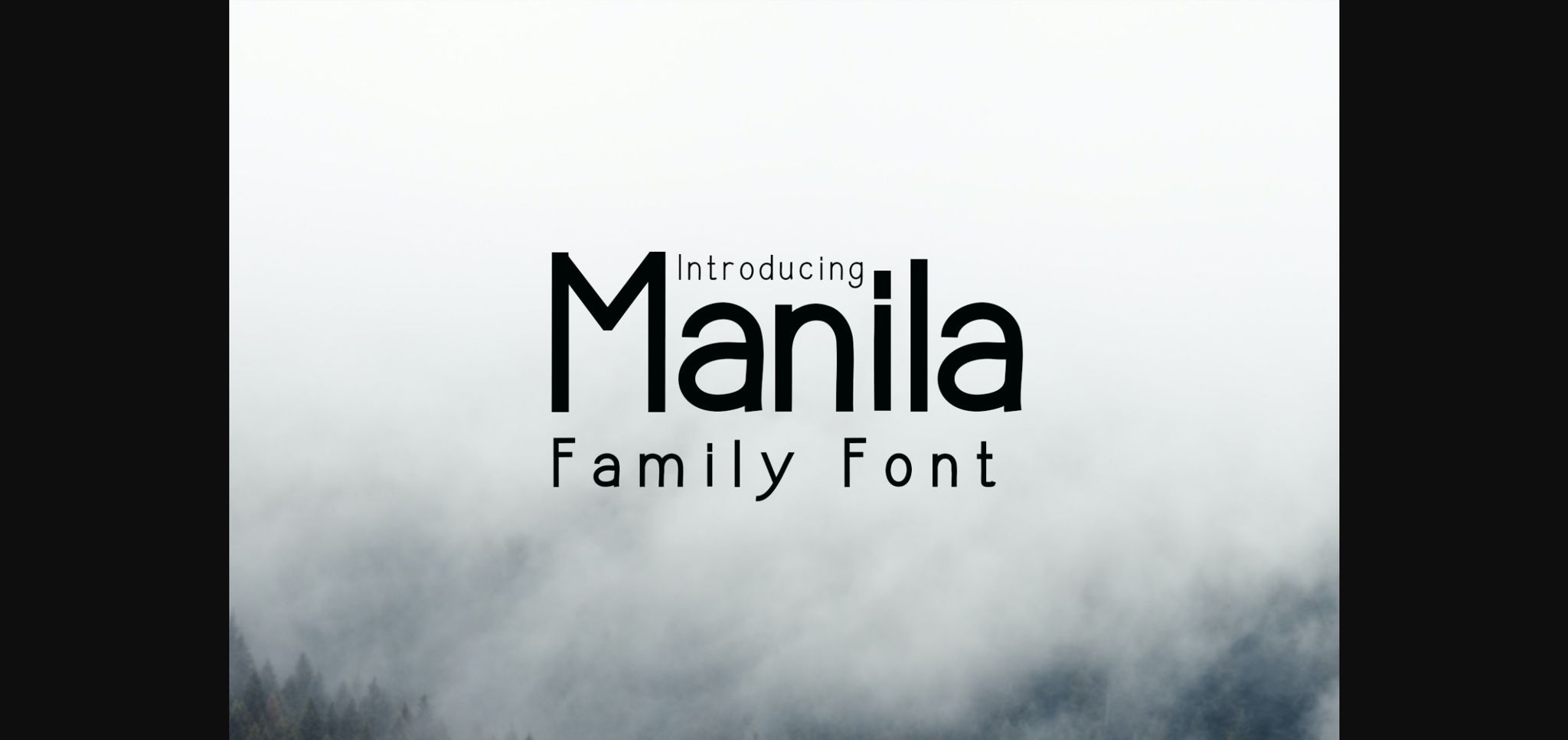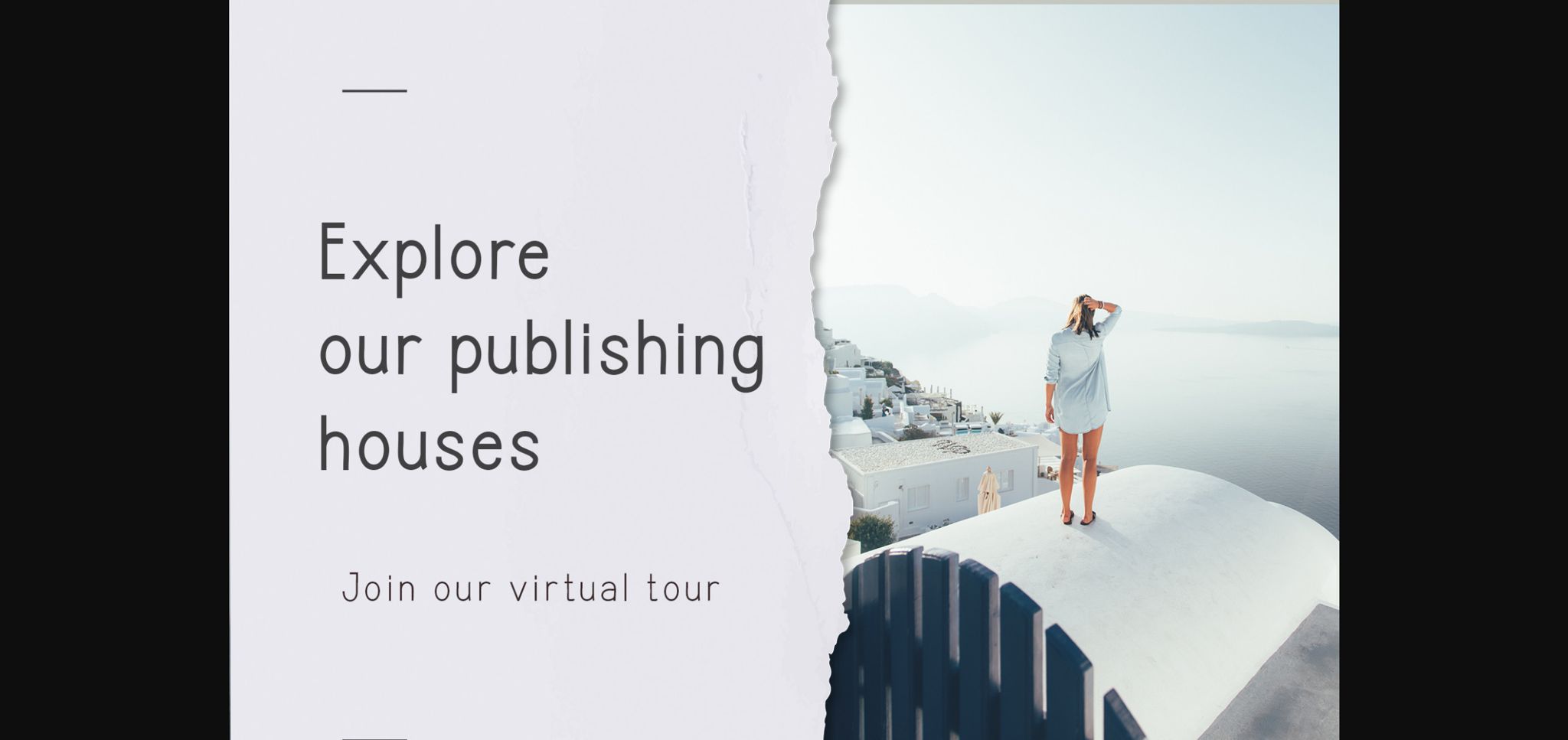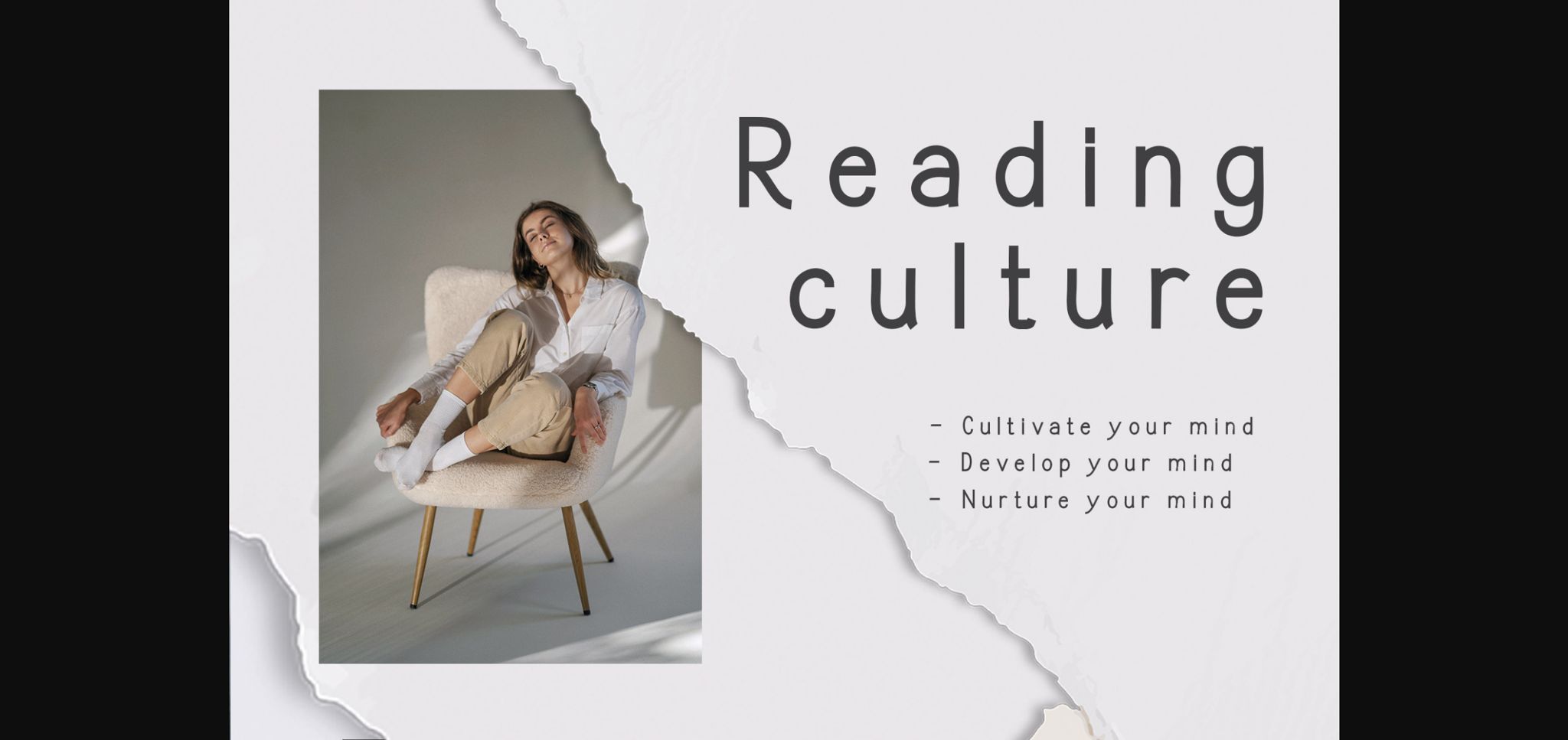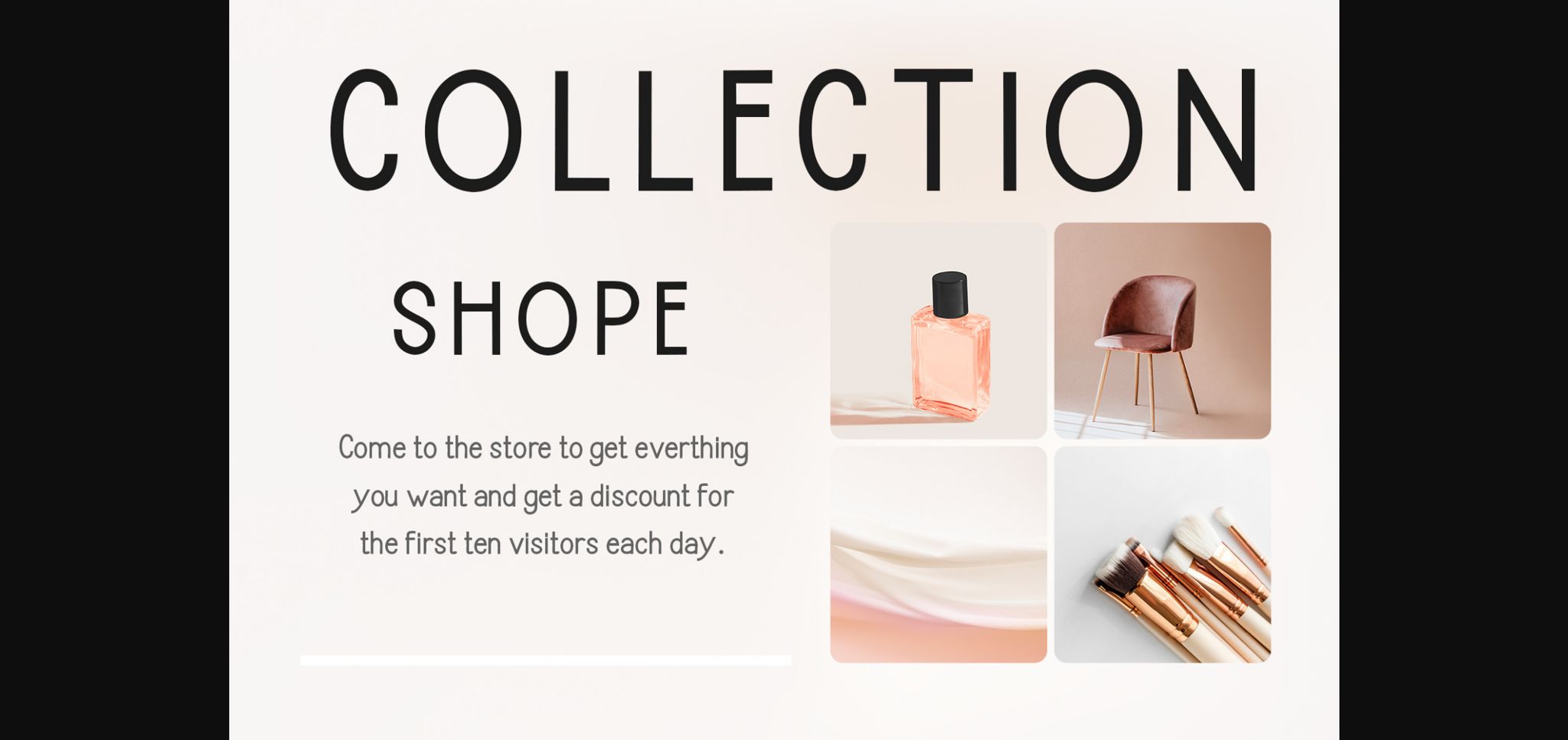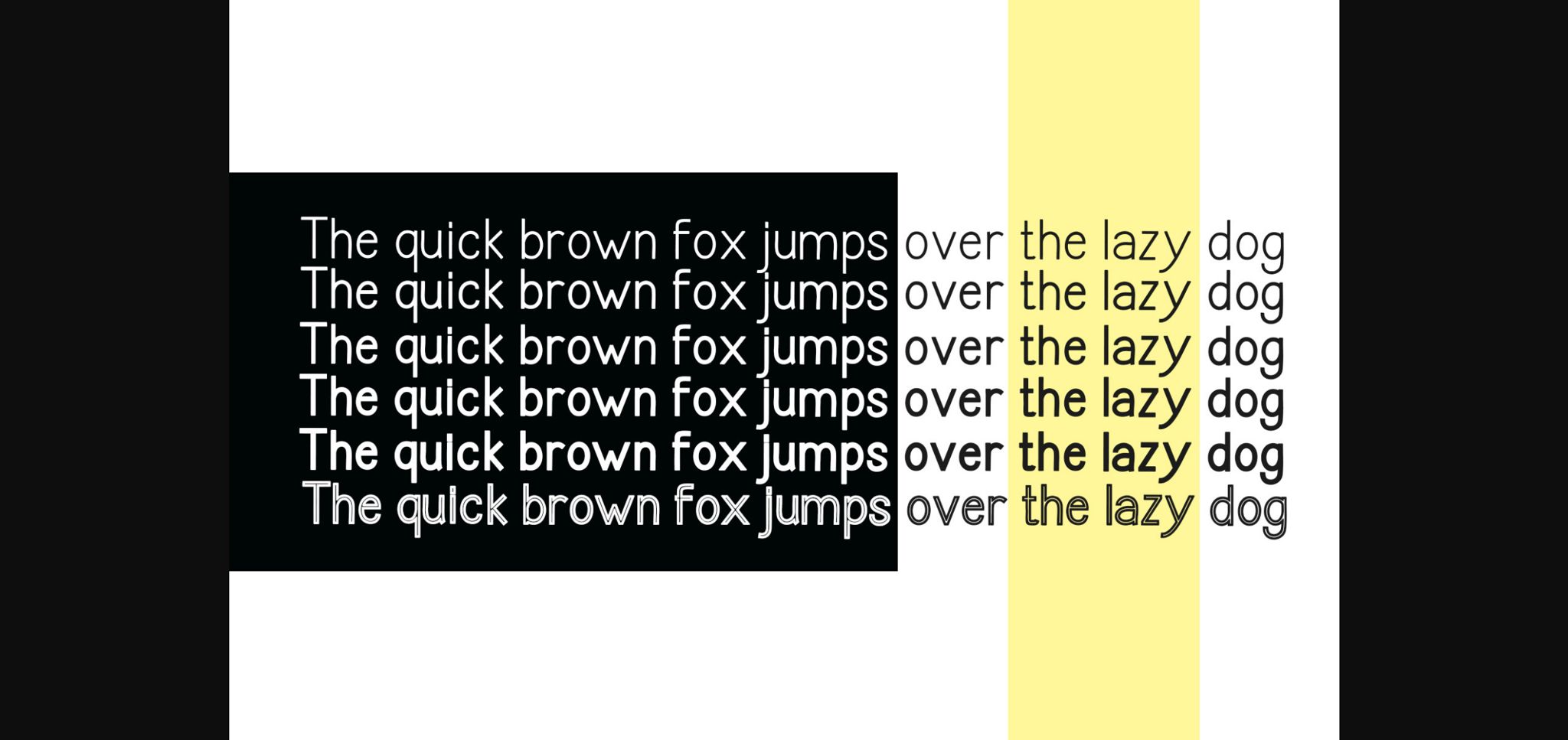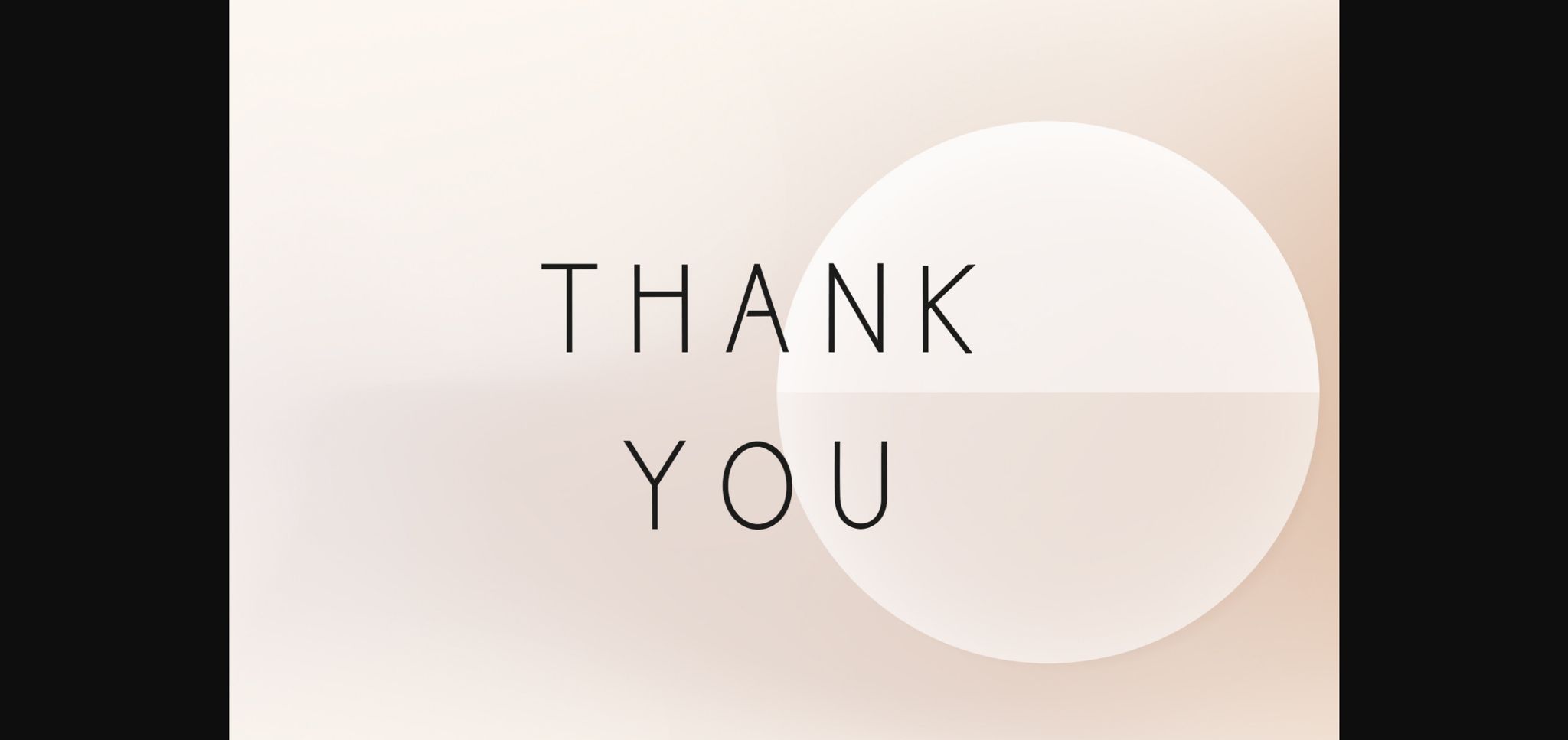
HomeSans Serif FontsManila Font Sans Serif Fonts Manila Font FacebookXPinterestWhatsApp 1 of 8 ... Manila Font Poster 2... Manila Font Poster 3... Manila Font Poster 4... Manila Font Poster 5... Manila Font Poster 6... Manila Font Poster 7... Manila Font Poster 8... About Manila Font Manila is a sleek, professional looking sans serif font. Incredibly versatile, this typeface is suitable for a wide spectrum of applications. DOWNLOAD NOW People also explored Sweet Love Font Lattih Tiny Font Astronueu Light Font Fineliner Font Little Gifts Font Chicago Doodles SchussSlabProLight No.11 (1 Font) Font Yourladies Modern Handwritten Font Gamila Font 339 0 TagsManilaManila Font Previous articleBody Packer FontNext articleHappy Kids Font LEAVE A REPLY Cancel reply Comment: Please enter your comment! Name:* Please enter your name here Email:* You have entered an incorrect email address! Please enter your email address here Website: Save my name, email, and website in this browser for the next time I comment. Personal Use Free Hashira Mt Personal Use Free Read more about this font Alnair Star Personal Use Free Read more about this font Happy Rabbit Personal Use Free Read more about this font Latifah Personal Use Free Read more about this font BLOG Modern Sans-Serif Fonts That Brands Love in 2025 In 2025, modern sans-serif fonts remain a top choice for brands looking to project clarity, professionalism, and... Using Fonts in Digital Marketing: Tips to Strengthen Your Brand Identity Elegant Wedding Invitation Fonts – Handwritten & Script Fonts Best Fonts for YouTube Videos: Make Your Thumbnails Stand Out